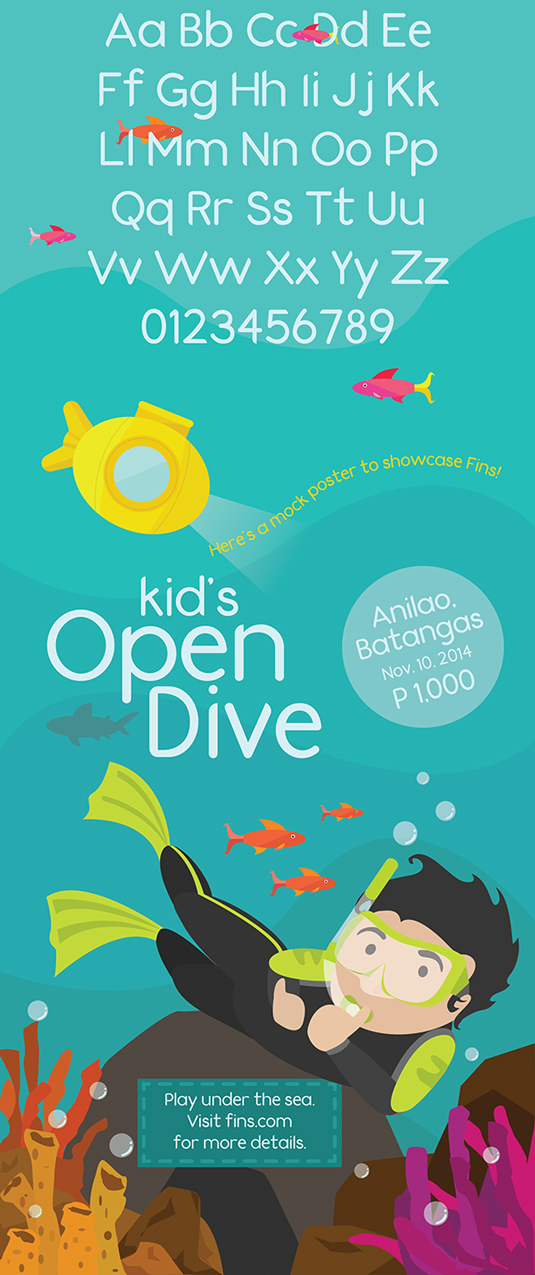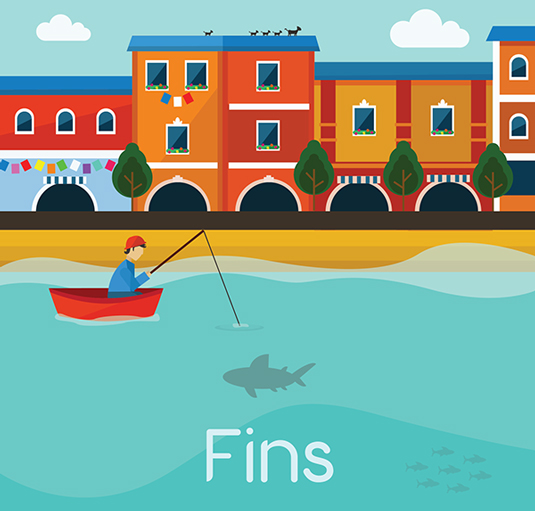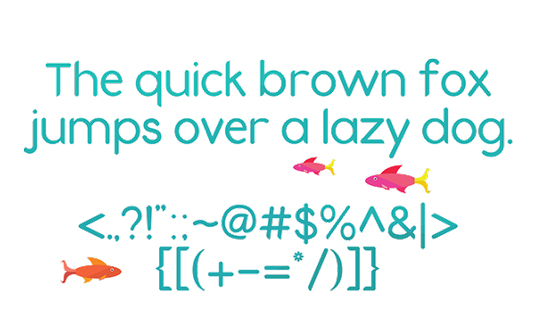
Font of the day: Fins
Fins by Jake Kho
Today's typeface of choice is Fins by graphic designer Jake Kho. A simple, sans serif typeface, Kho created Fins for a typography class. A clean and simple font, Fins is perfectly suited to child-themed designs.